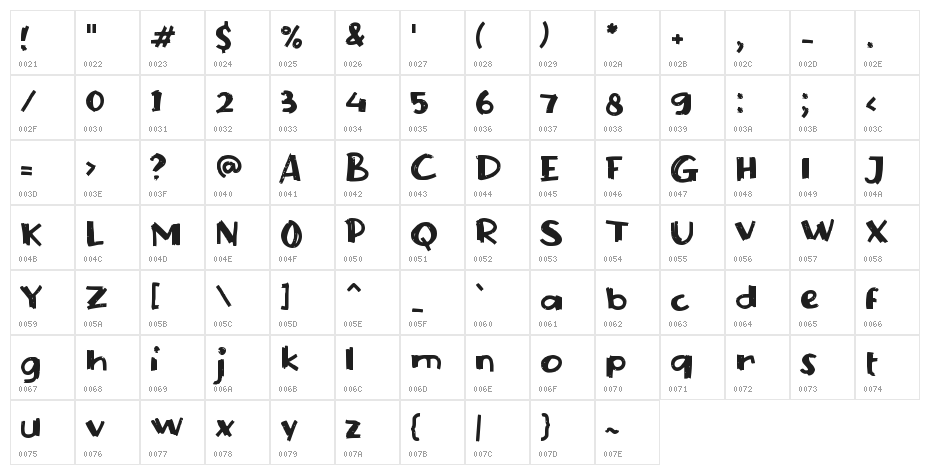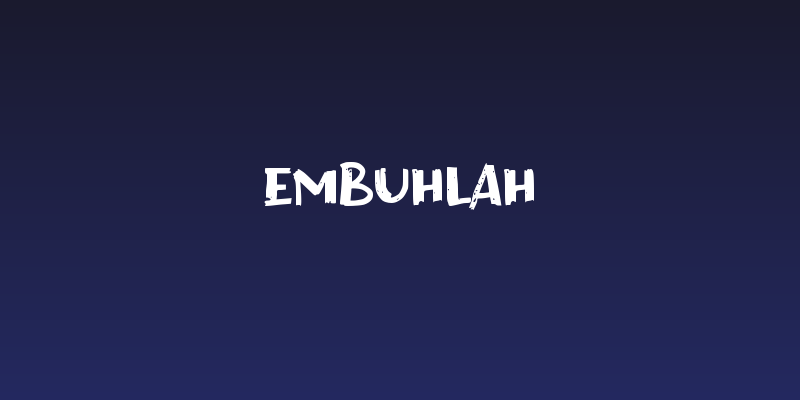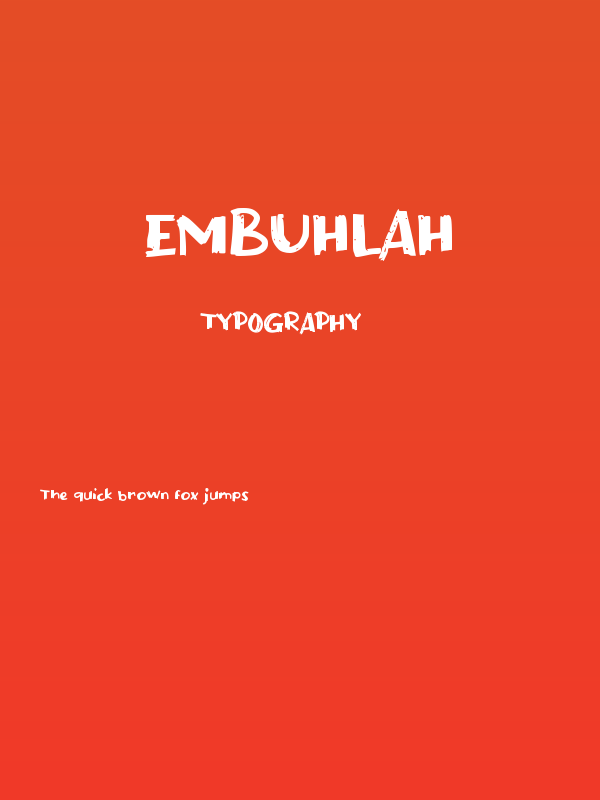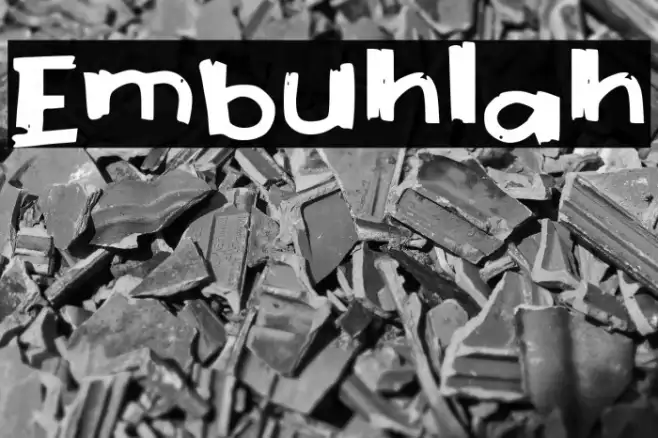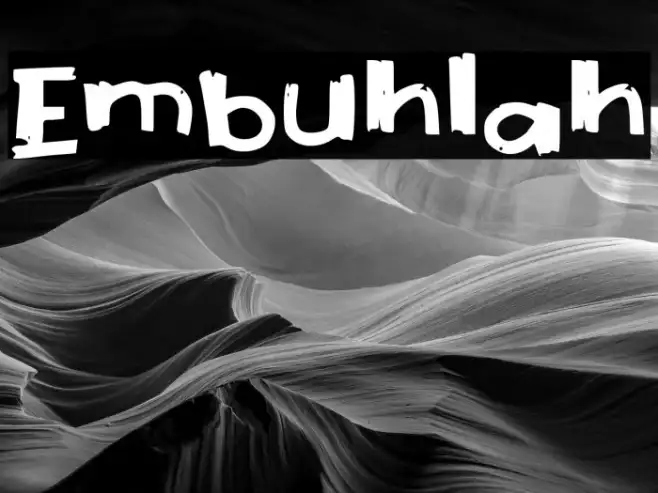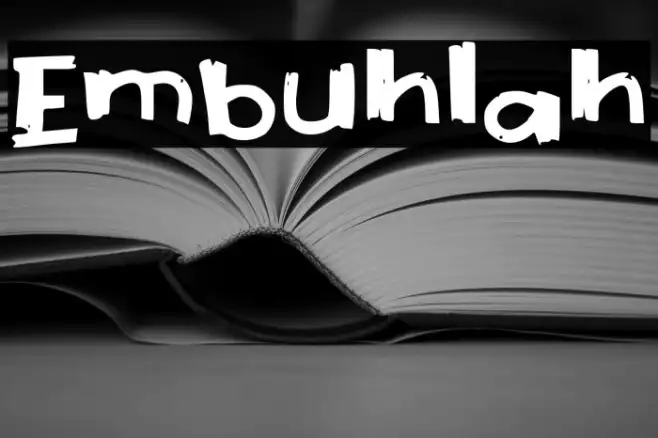
Embuhlah Font
Embuhlah Description
This font features a bold and energetic style with a hand-drawn appearance. The characters are irregular and playful, giving a sense of movement and spontaneity. The strokes are thick and uneven, with a rough texture that adds to its dynamic feel. The uppercase and lowercase letters maintain a consistent style, with the lowercase being slightly more compact. Numbers and special characters follow the same lively design, making the font versatile for various creative applications. The overall aesthetic is informal and artistic, suitable for projects that require a touch of whimsy and creativity.
| Proposed Projects | Ideal for posters, children's books, comic strips, and creative branding projects. |